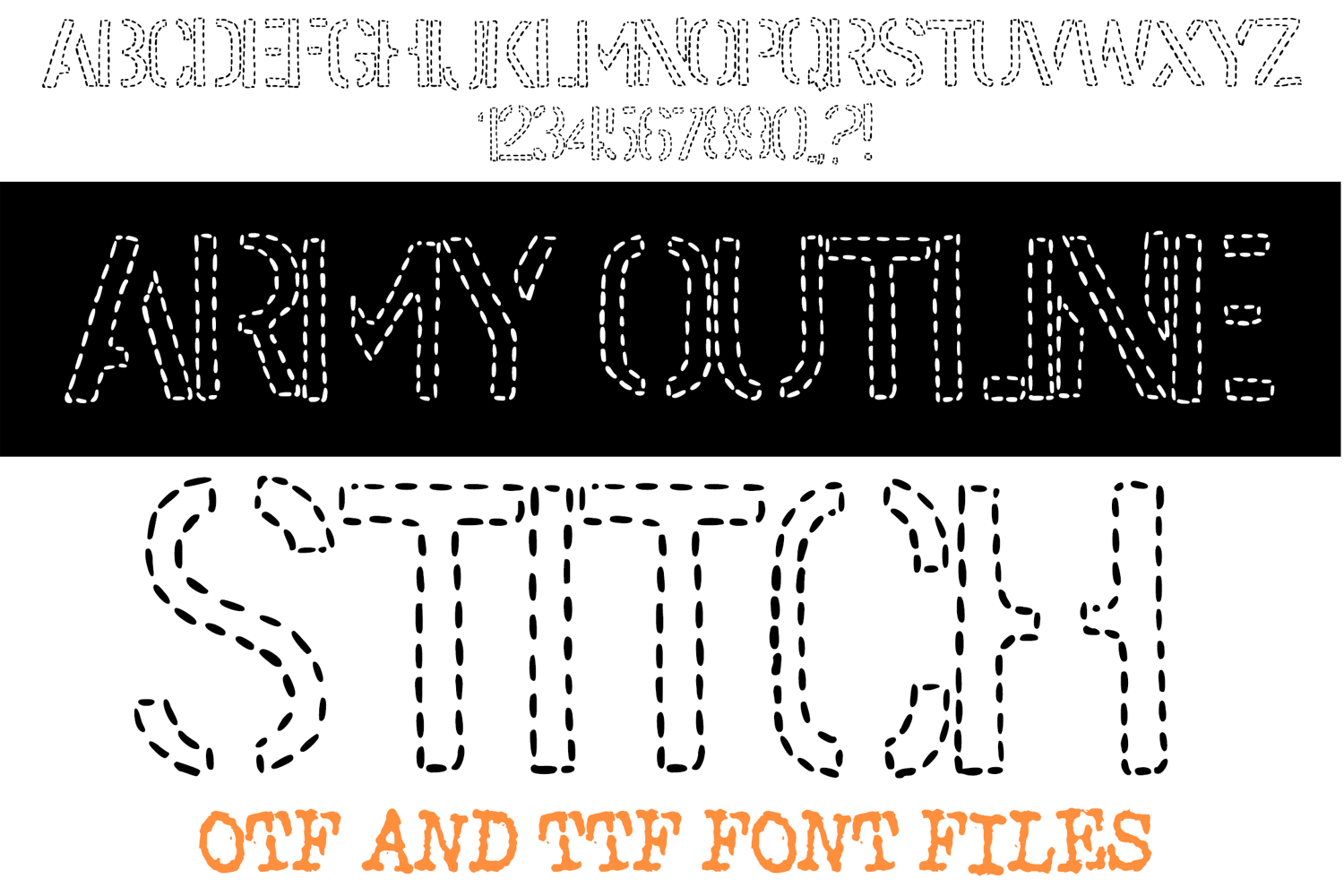
Army Outline Stitch Patch Alphabet Lettering ABC Embroidery
Infuse your designs with a unique blend of rugged utility and meticulous craftsmanship with Army Outline Stitch Font! This distinctive typeface brilliantly combines the no-nonsense precision of military lettering with the charming, handcrafted appeal of delicate stitching. It's more than just a font; it's a statement of detailed purpose, perfect for projects that need a look that's both strong and subtly intricate.
Each character in Army Outline Stitch Font is designed with a clear, assertive outline, formed by a continuous line of uniform 'stitches' or perforations. This unique texture evokes the look of sewn patches, military stencils, or carefully perforated patterns on fabric or metal. Ideal for crafting military-themed designs, DIY projects, fashion labels, outdoor gear branding, craft fair signage, or any creative work that demands a blend of strength, detail, and a handcrafted touch.
Whether you're aiming for an authentic military aesthetic, a robust craft vibe, a unique modern stencil look, or a subtly textured display, this font delivers with uncompromising style. Its clear, dotted outline ensures readability while injecting an artistic detail that stands out dramatically from conventional typefaces.
If you're looking to infuse your designs with a sense of bold precision, unique texture, and undeniable visual intrigue, Army Outline Stitch Font is your ultimate tool. Stitch your message with impact!